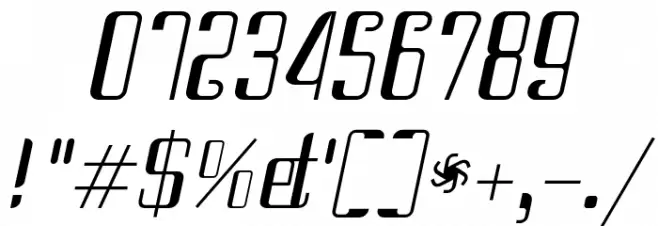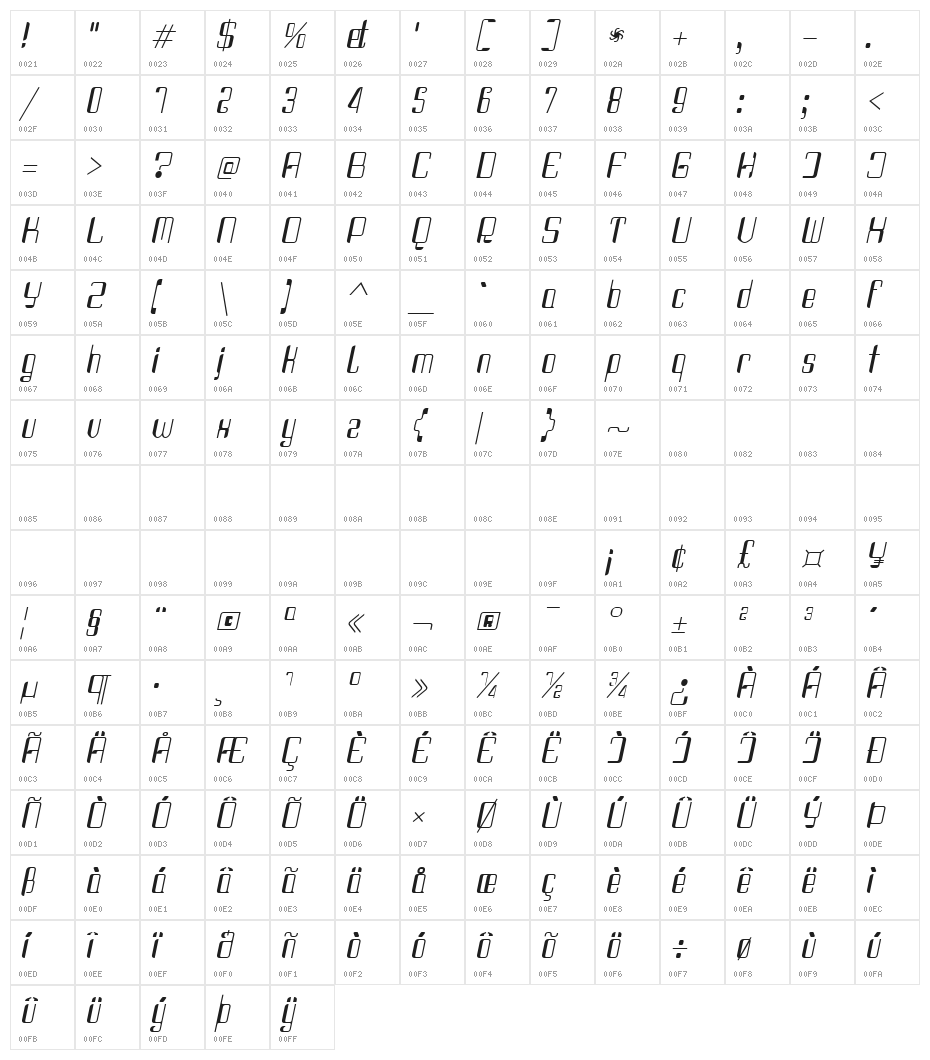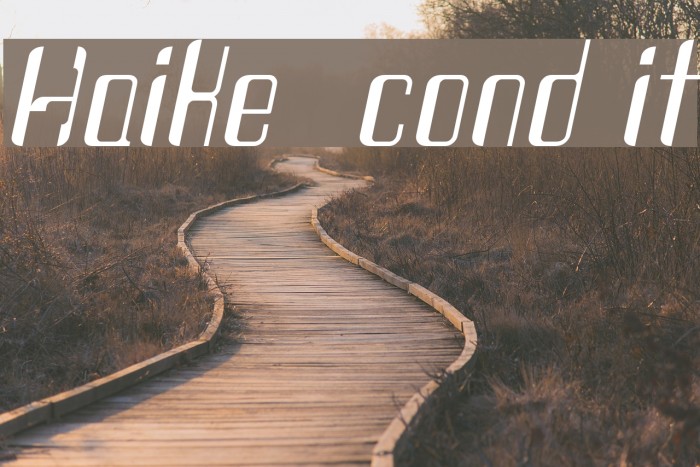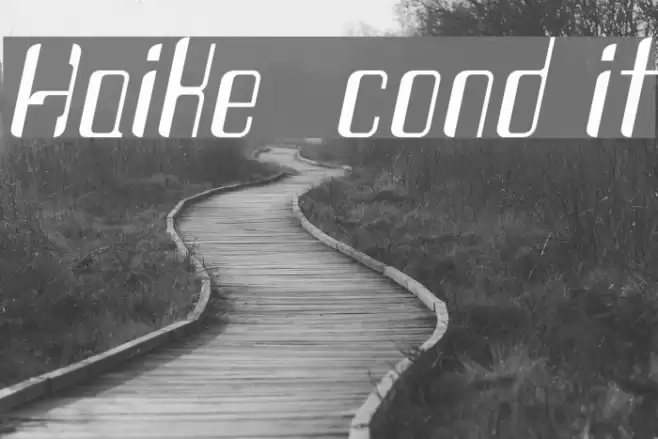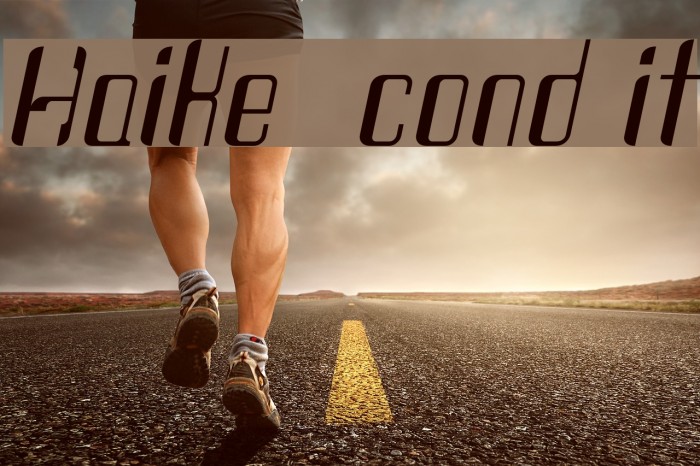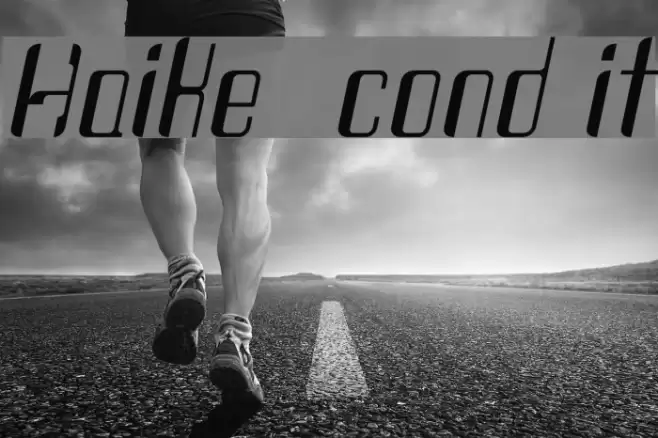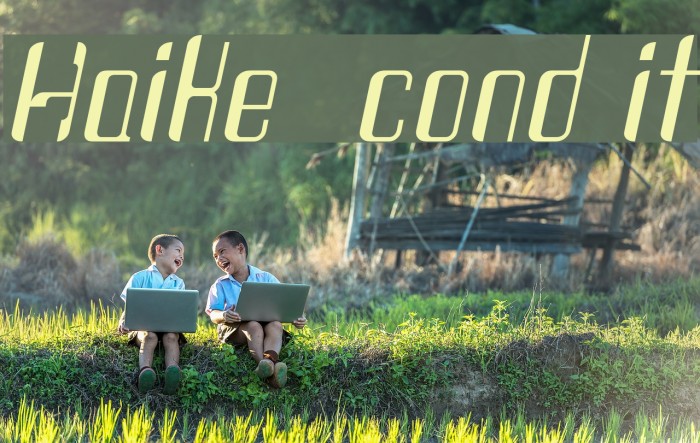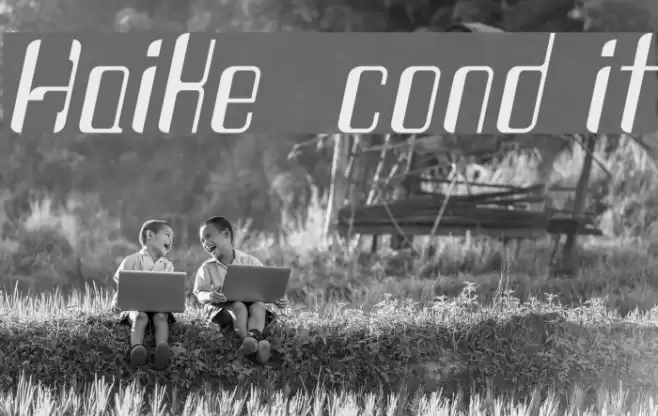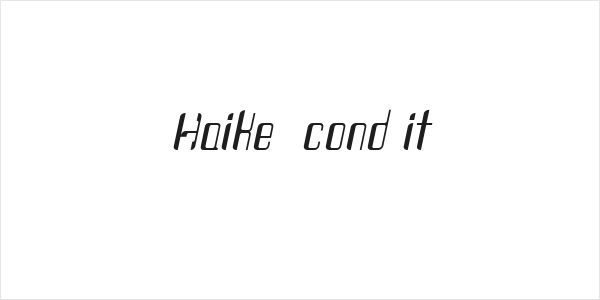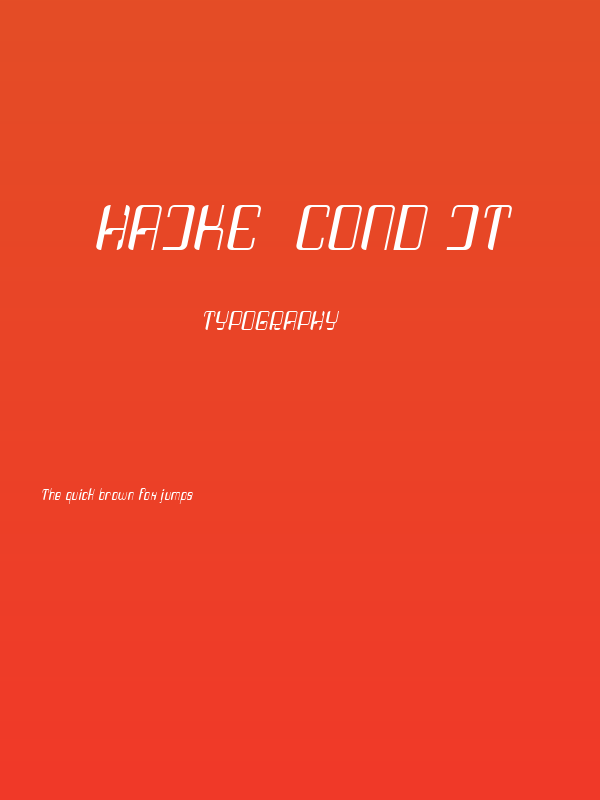
Haike cond it Font
Haike cond it Description
This font exhibits a modern and sleek design with a condensed structure. The characters are slightly slanted, giving a dynamic and forward-moving appearance. The strokes are consistent in width, providing a uniform look across all characters. The uppercase letters are tall and narrow, while the lowercase letters maintain a similar style but with a slightly softer edge. The numerals are clear and distinct, matching the overall aesthetic of the font. Special characters are designed with the same attention to detail, ensuring they blend seamlessly with the rest of the typeface.